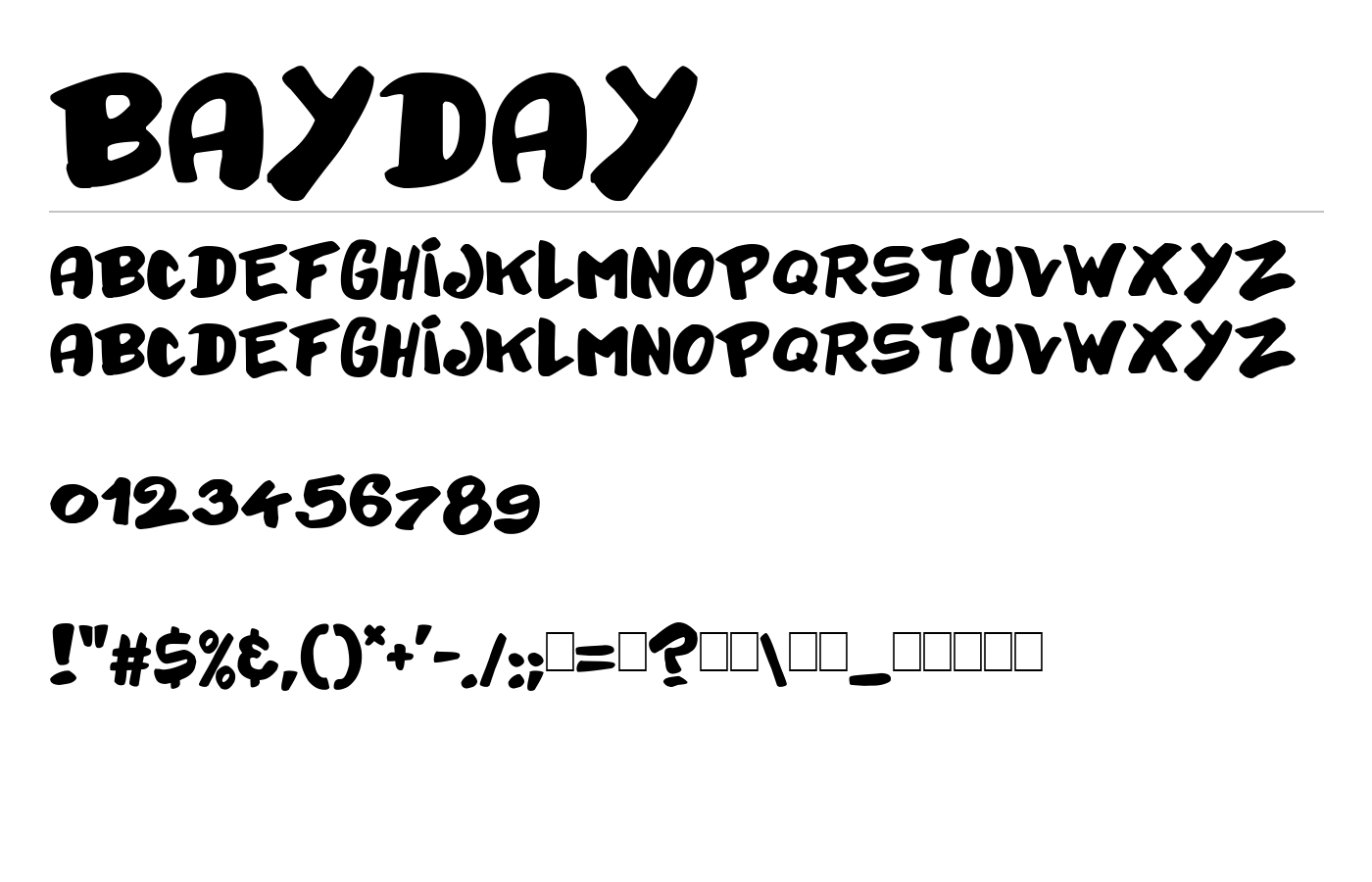
Bayday is a bold, playful sans serif font with a hand-drawn, brush-like style that gives it a lively and casual feel. Its thick, rounded strokes and lively letterforms make it perfect for fun branding, children's products, posters, and any design that needs an energetic, informal touch. This font stands out in headlines and display uses where a friendly, approachable vibe is desired.
Bayday Font
About Bayday Font